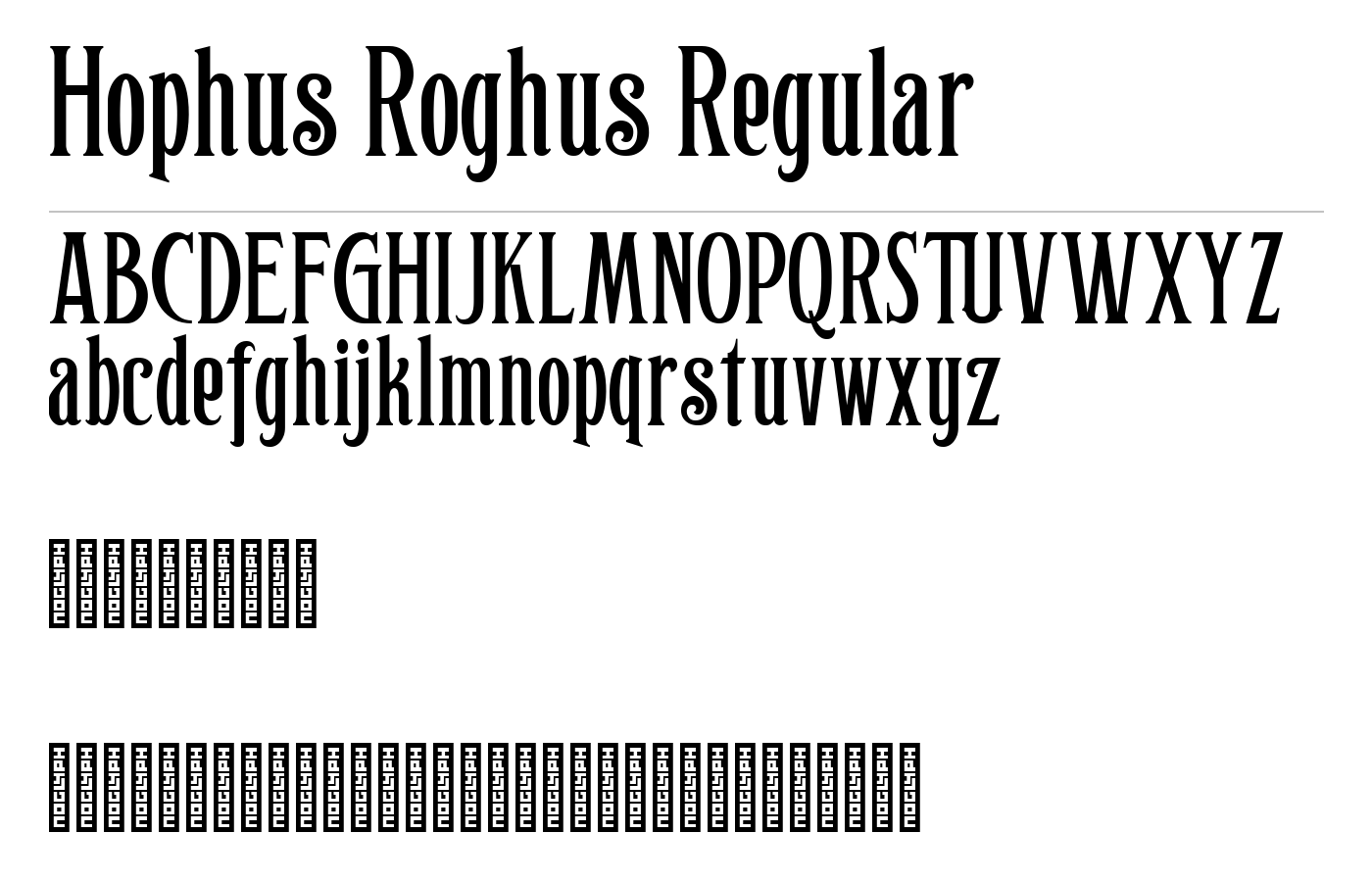
Hophus Roghus Layered Font is a narrow serif typeface with tall, elegant letterforms and strong contrast between thick and thin strokes. Its distinctive style, featuring sharp serifs and a vintage yet refined feel, makes it ideal for creating striking headlines, logos, and editorial designs that seek a sophisticated, classic character. This font works well in fashion, luxury branding, and impactful display projects where a blend of timeless elegance and bold presence is desired.
Hophus Roghus Layered Font
About Hophus Roghus Layered Font